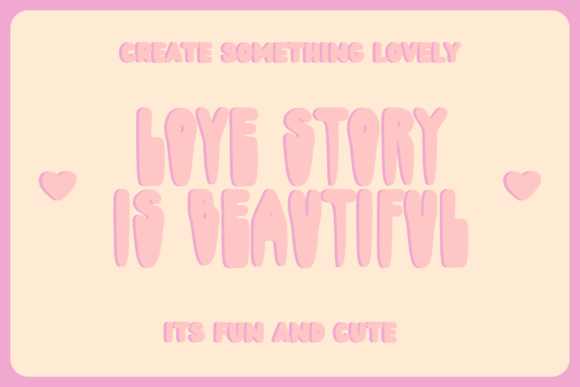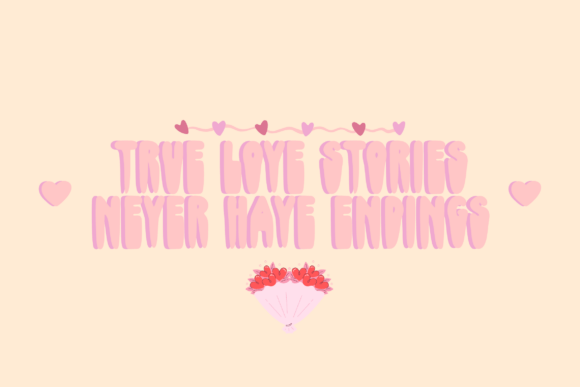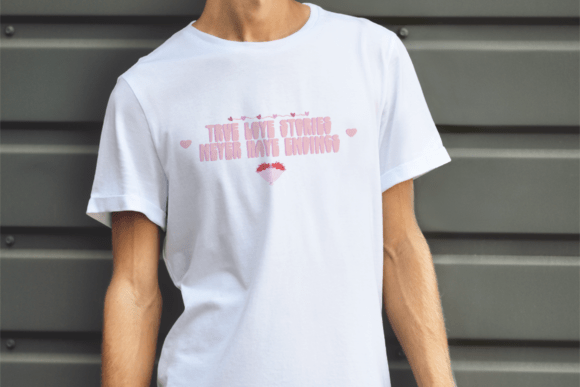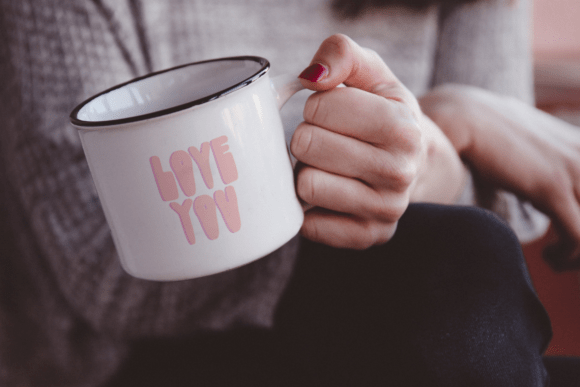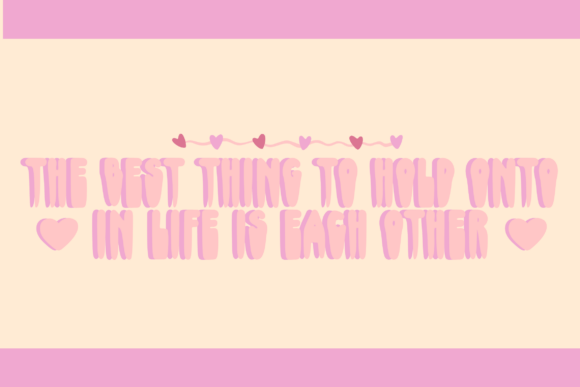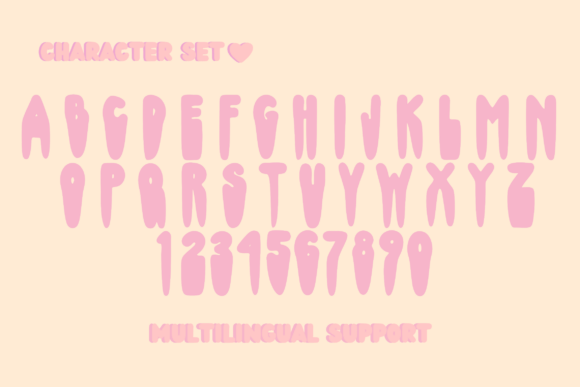
The Perfect Blend of Fun and Sophistication
Have you ever stumbled upon a font that instantly sparks creativity and makes you want to design something amazing? That’s exactly what happened to many designers when they discovered the enchanting Bubble Condense Font. Its unique blend of playful energy and chic finesse makes it a timeless choice for creating striking designs.
Whether you’re working on a child-centric theme, a retro design, or an innovative creative venture, the Bubble Condense Font is the perfect companion to help you bring your ideas to life. Its versatility, combined with its soft, broad curves and cozy layout, makes it a valuable asset for designers who want to add a touch of magic to their projects.
Bubble Condense Font Key Features
- Unique Characteristic: The font features a distinctive bubble-like design with condensed proportions, making it ideal for use in titles, headings, and short paragraphs where space is limited.
- Font Weight and Style: The font comes in 3 weights: Light, Regular, and Bold, allowing for flexibility in design and layout.
Bubble Condense Font Review
At first glance, Bubble Condense Font seems like a promising addition to any designer’s toolkit. Here are some aspects that work well: ✨
- Friendly, approachable feel that’s perfect for informal and creative projects.
- Highly customizable, allowing for easy adjustments to size, color, and spacing.
- Supports a wide range of languages, making it a great option for global audiences.
- The condensed version can become a bit too compact at smaller sizes, potentially affecting readability.
- The bubble-like aesthetic might not be suitable for more formal or professional projects.
- The font’s overall feel is somewhat playful, which may not be ideal for projects requiring a more serious tone.
In my opinion, Bubble Condense Font is a solid choice for designers looking to add some personality to their work. While it has its limitations, the font’s flexibility and customization options make it a valuable asset for the right projects. With some careful consideration of its unique characteristics, Bubble Condense Font can help elevate your designs and leave a lasting impression.
Some tips for getting the most out of the Bubble Condense Font include experimenting with different font sizes and colors to create visual interest, and using it to highlight important text or create a unique design element. Common use cases include creating eye-catching headlines, designing social media graphics, and adding a touch of whimsy to presentations or documents.